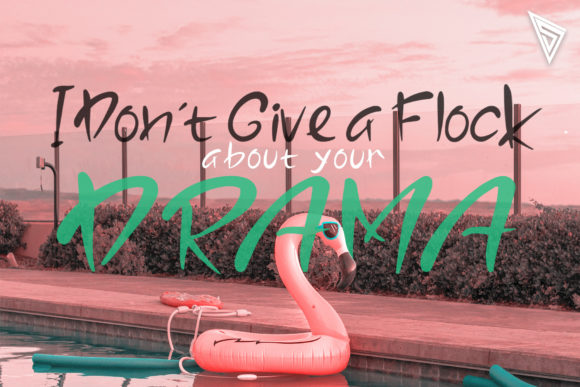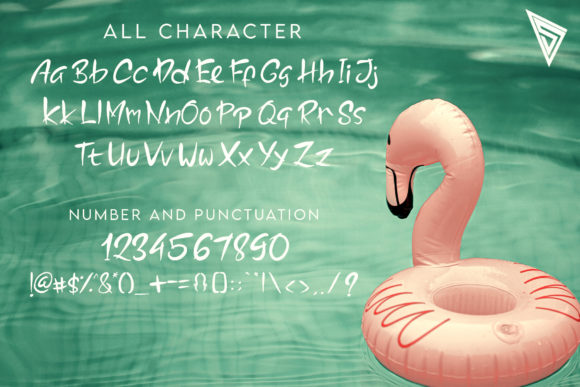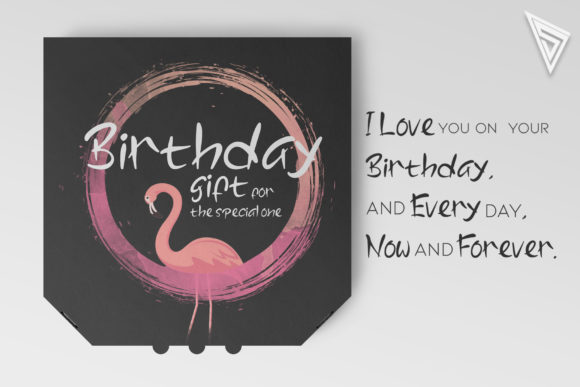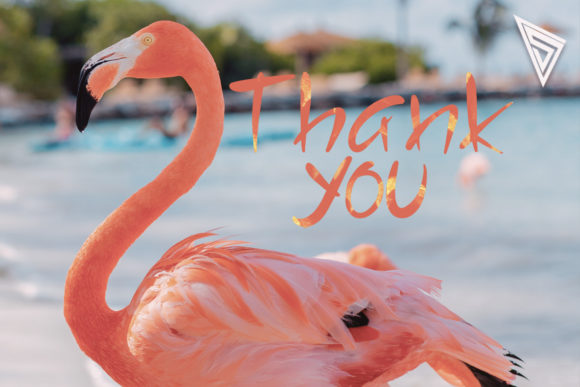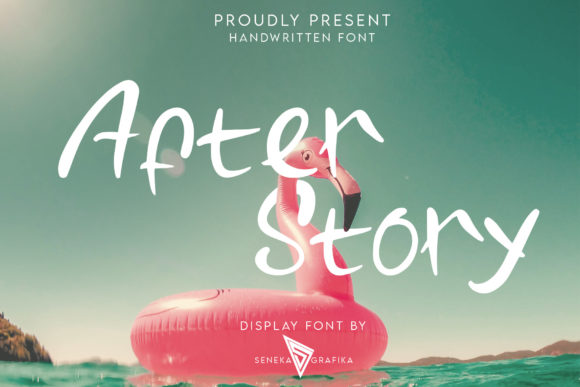
The Elusive Perfect Font: My Encounter with After Story
Ah, the quest for the perfect font. We’ve all been there – stuck in the midst of a design project, scrolling through font libraries, and yet, nothing seems quite right. I recall a particularly frustrating moment when a client requested a logo that exuded elegance and modernity. As I sifted through my font collection, I stumbled upon After Story Font. Its refined script and classy demeanor immediately caught my eye. It was as if I had finally found the needle in the haystack.
An Honest Review of After Story Font
- ✨ Elegant and Modern Design: After Story boasts a beautiful, refined script that adds a touch of sophistication to any design.
- ✅ Versatility: This font is perfect for a wide range of applications, including logos, branding, invitations, stationery, wedding designs, social media posts, and more.
- 💫 High-Quality Typography: The font is crafted with attention to detail, ensuring that it looks stunning in both digital and print formats.
While After Story Font is exceptional, there are a few minor considerations to keep in mind:
- 🤔 Legibility at Small Sizes: Like many script fonts, After Story may become less legible at very small sizes. It’s best used at larger sizes or for headlines.
- ⚠️ Overuse of Swashes: While the font comes with beautiful swashes, using too many can make the text difficult to read. Balance is key.
The Backstory of After Story Font
The creation of After Story Font can be attributed to a designer with a passion for typography and elegance. Inspired by classic scripts and modern typography trends, the designer aimed to craft a font that would serve as a versatile tool for creatives. The result is a font that embodies both sophistication and approachability.
| Font Name | After Story Font |
| Author | Senekaligrafi Font |
Q: Is After Story Font suitable for body text?
A: While After Story is stunning, it’s primarily designed for headlines and short texts. For body text, consider a more readable font.
Q: Does After Story support OpenType features?
A: Yes, After Story supports OpenType features, including swashes and stylistic alternates, which can enhance your designs.